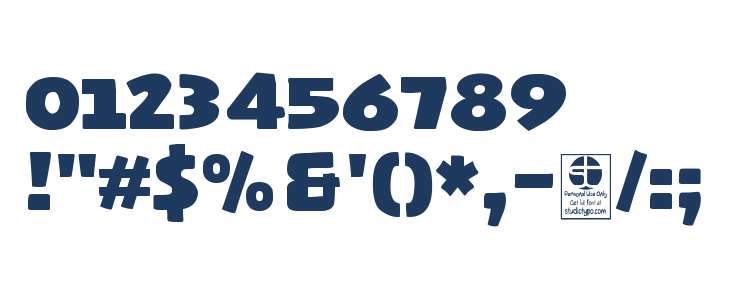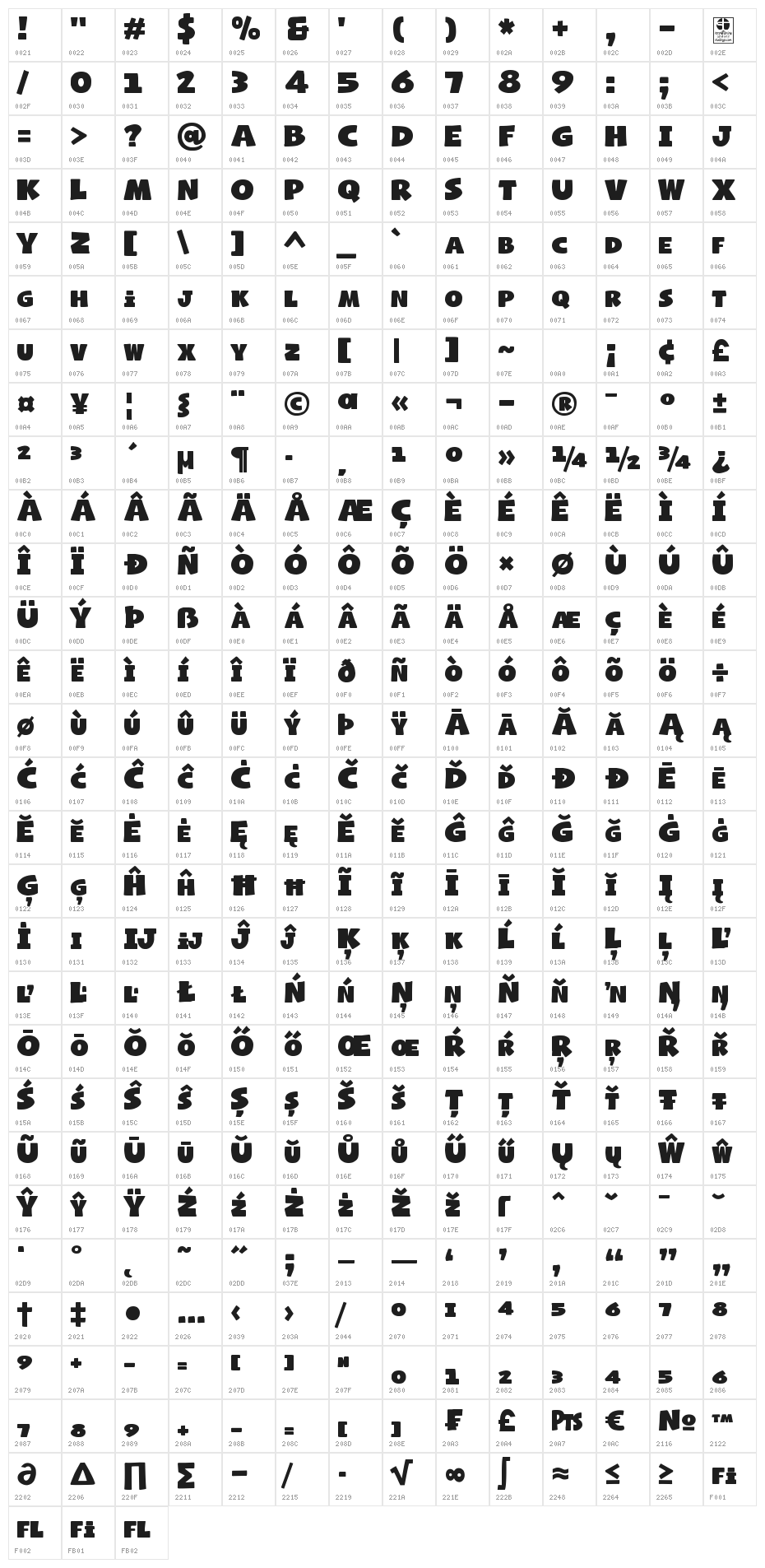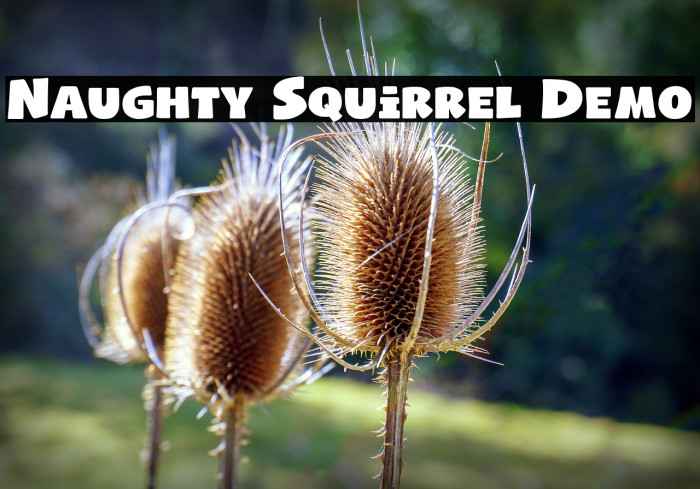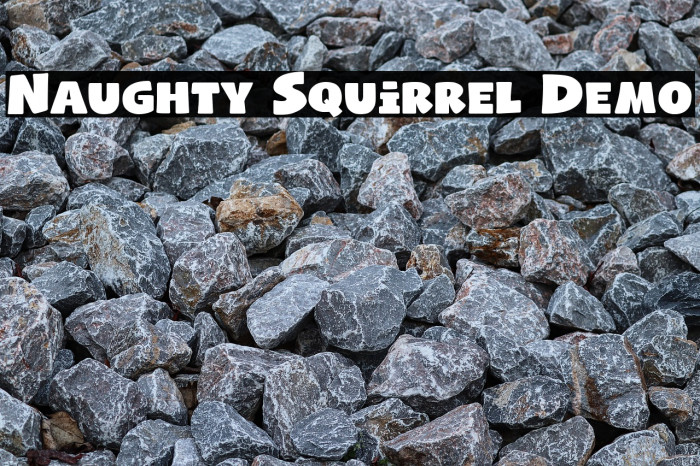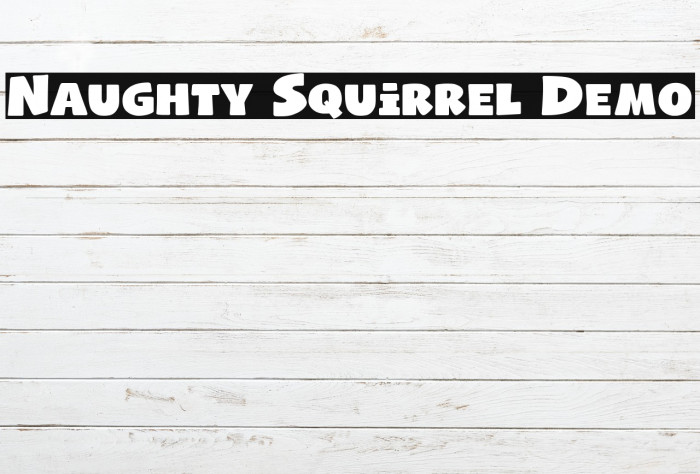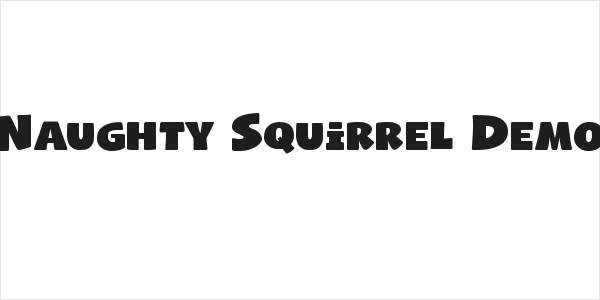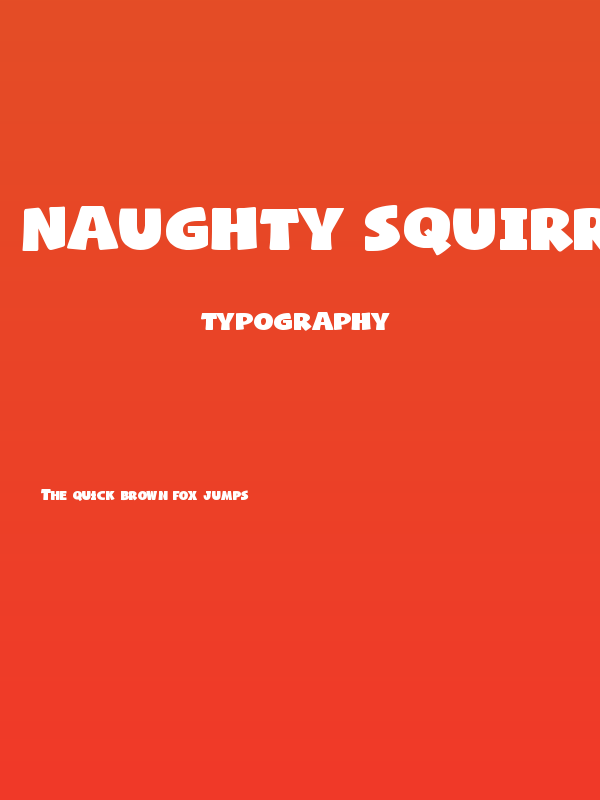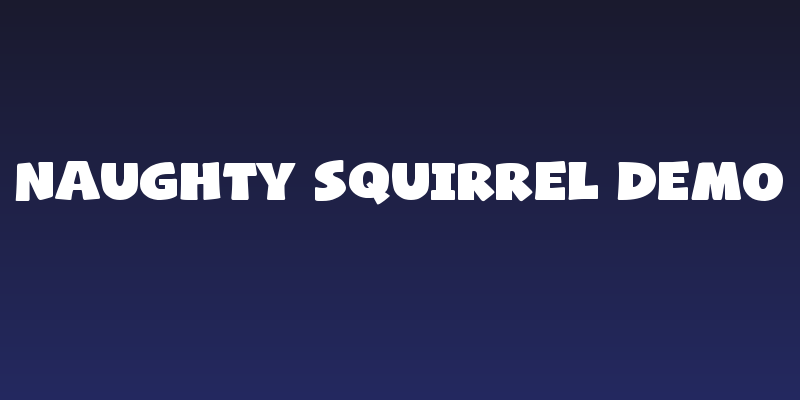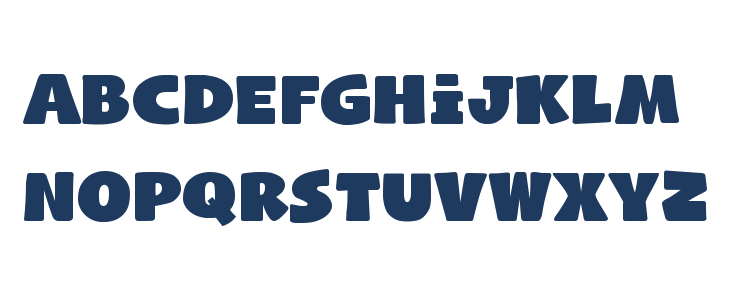
Naughty Squirrel Demo Font
Naughty Squirrel Demo Description
This playful and bold font features a chunky, rounded style with a whimsical touch. The characters are thick and slightly irregular, giving them a lively and energetic appearance. The uppercase and lowercase letters maintain a consistent weight, while the numbers and special characters complement the overall design. The font's unique style makes it stand out, with a fun and approachable vibe that is perfect for creative projects. Its boldness ensures high visibility, making it suitable for eye-catching designs.
| Proposed Projects | Ideal for children's books, playful branding, posters, and party invitations. |